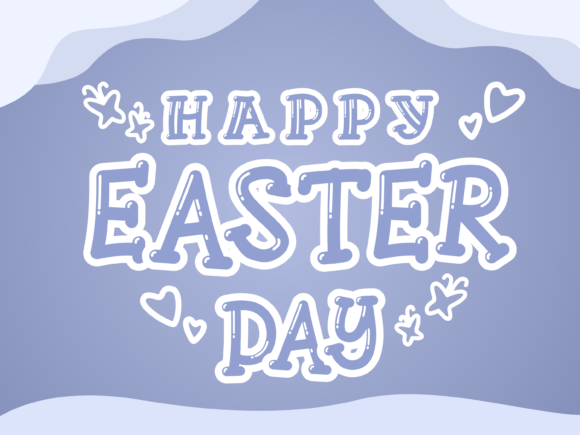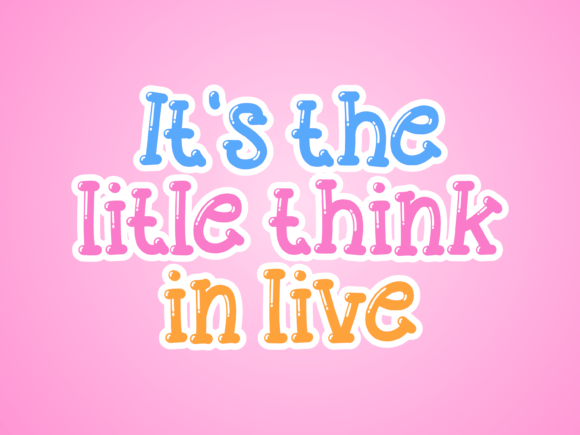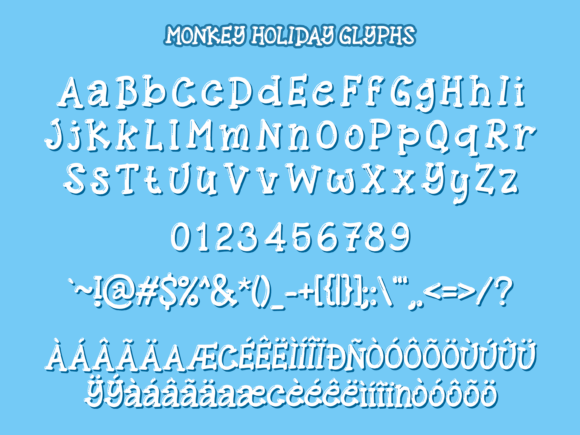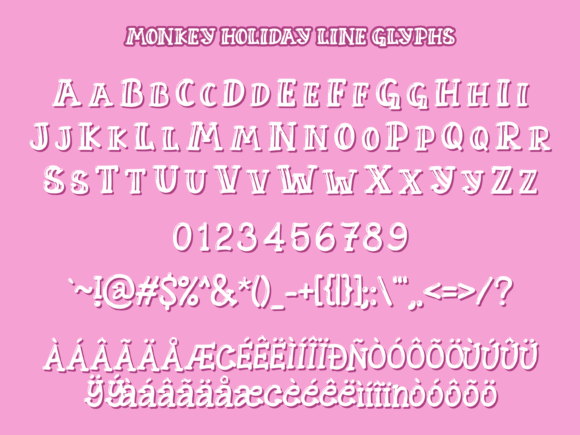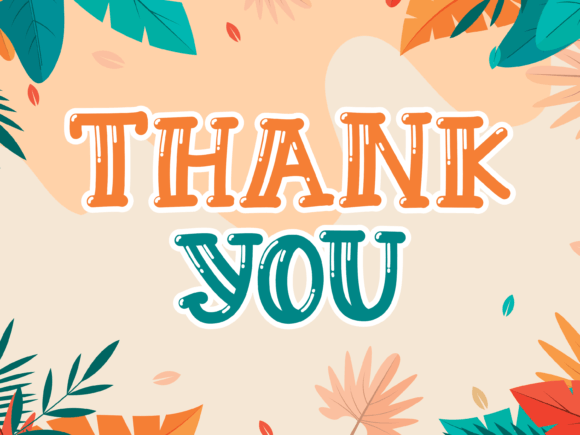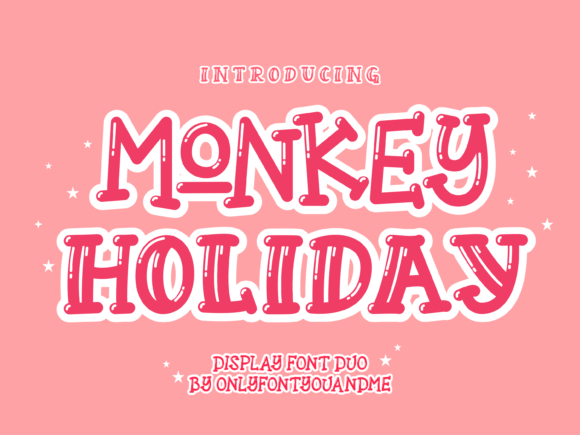
Introduction to Monkey Holiday Duo Font
Monkey Holiday Duo is a cute, friendly and fun display font.
Whether youโ€™re using it for crafts, digital design, presentations, or making greeting cards, this font has the potential to become your favorite go-to font, no matter the occasion .
Key Features of Monkey Holiday Duo Font
Why Choose Monkey Holiday Duo Font?
Monkey Holiday Duo Font offers exceptional quality and versatility, making it a valuable addition to your design toolkit. Whether you’re creating for personal projects or commercial use, Monkey Holiday Duo Font delivers professional results.